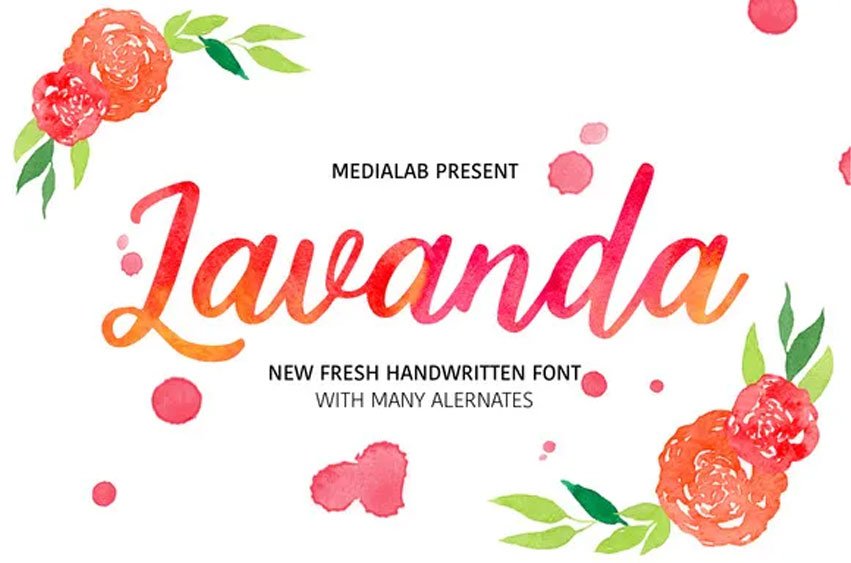
Lavanda Script Font is a beautiful new calligraphy font type which is exclusively meant for greeting cards & promotional material, business cards Posters, quotes and many more!! In its turn, PUA Unicode grants a full access to all the additional characters it contains without indicating the necessity to use designing application; for Mac fans it is worth mentioning the Font Book.